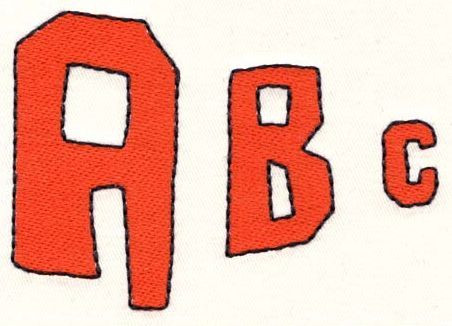
192 Frankenstein Font
Frankenstein Font comes in 1", 2" & 3" heights. Features Fill stitch center with triple-stitch outline. Uppercase letters, numbers and punctuation marks (no lowercase). All characters individually fit all standard 4x4 hoops.